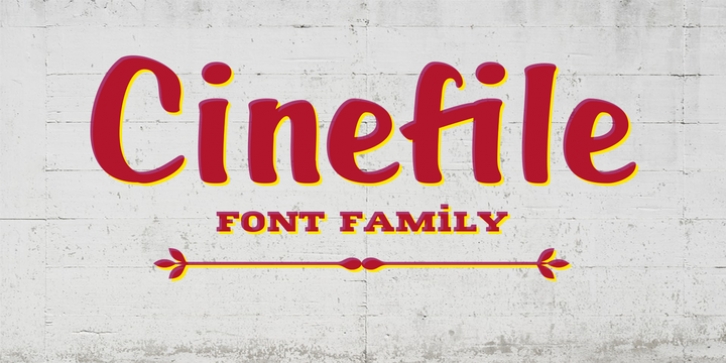
Cinefile was designed by Carine de Wandeleer and published by Eurotypo. Cinefile contains 3 styles and family package options.
The 50's were the golden years for cinema and consequently also for the artists who lettered on the posters. Cinefile is a brushed disconnected script included in a family font that evokes the soul of that vintage brush but with a modern touch. The main characteristics of Cinefile are soft and rounded shapes and a very high x-height, clean and easy to read.
Cinefile Family includes 3 fonts: Cinefile, a very versatile script font with initial forms, and a generous complement of alternate characters, ligatures, ordinals, Cinefile Slab Serif and Cinefil Ornaments that combine perfectly and give you many options to your designs. Remember that to access to all additional characters, you must use software that is truly compatible with OpenType, such as Adobe CS applications, or we recommend using the Glyphs palette.
Cinefile is a friendly and fluid family font that adapts well to titles, packages, invitations, greeting cards, magazines and book covers, children's material, fashion, logos and, posters and wherever you need a fun and sympathetic display font.
· Cinefile Regular
· Cinefile Slab Serif
· Cinefile Ornaments